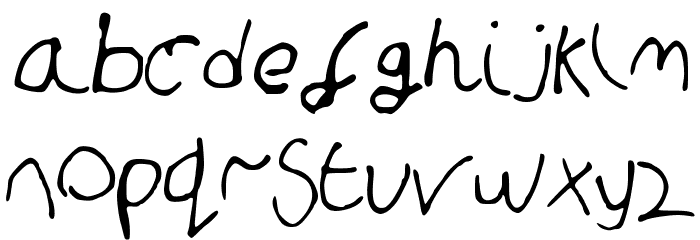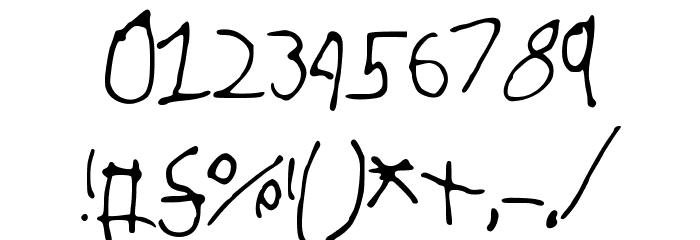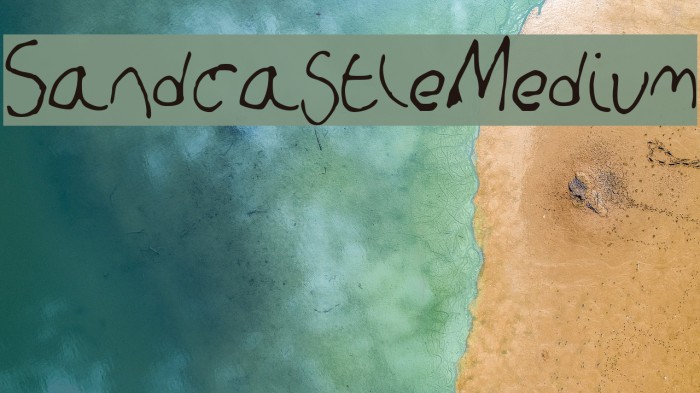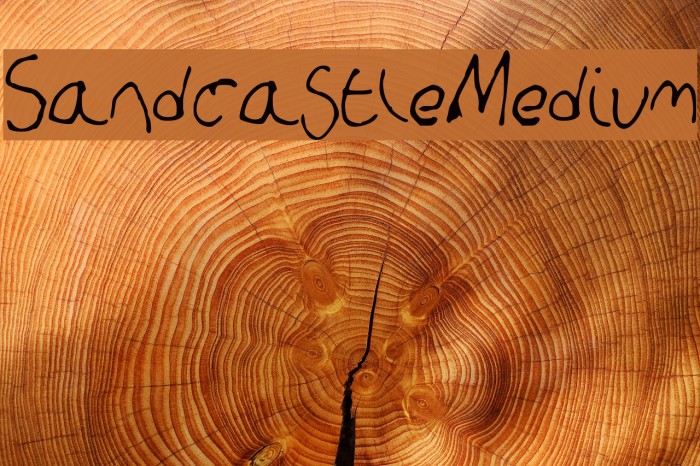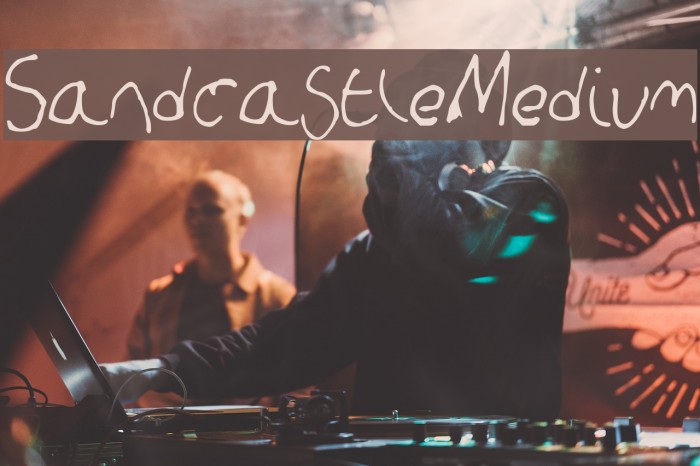
SandcastleMedium Font
This font exhibits a playful and whimsical handwritten style, characterized by its irregular and slightly uneven strokes that mimic the natural flow of handwriting. The letters vary in height and width, adding to its casual and informal appearance. The uppercase letters maintain a consistent baseline, while the lowercase letters show more variation, enhancing the font's organic feel. The numerals and special characters are crafted with the same playful touch, making them blend seamlessly with the alphabet. This font is ideal for projects that require a personal and approachable tone.
A playful, handwritten font with irregular strokes and a casual style.
- Proposed Projects: Greeting cards, children's books, informal invitations, personal blogs, and creative branding.
- Overall Style: Casual, Playful
- Use Case: Headlines, Informal text, Creative projects